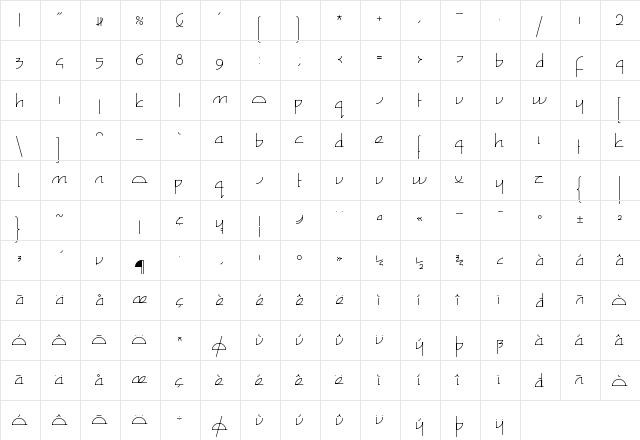
Zefir Normal
| Designer | Adam Rucki |
Design Context for Zefir Typeface
Zefir is a composed and adaptable typeface that performs quietly and consistently across a wide range of design contexts.